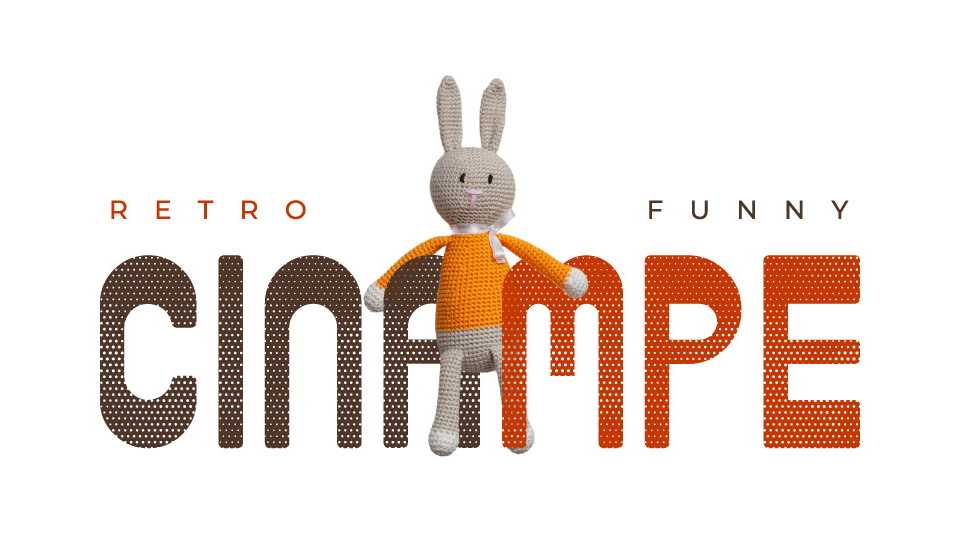
Download Cinampe font, a reverse contrast display typeface with a friendly and funny look. With its retro vibe Cinampe font is perfect for logotype, headline, signage, apparel design, posters, labels, covers and more.
Designer: Aqamulhaq Abdurrazaq